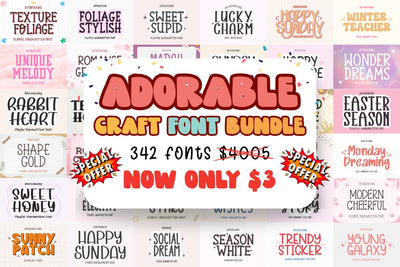
Adorable Craft Font Bundle
🌟 Adorable Craft Font Bundle 🌟
Get ready to fall in love with the Adorable Craft Font Bundle – a massive collection of 342 playful, cute, and creative fonts made especially for crafters, designers, and DIY lovers!
342 unique and high-quality fonts